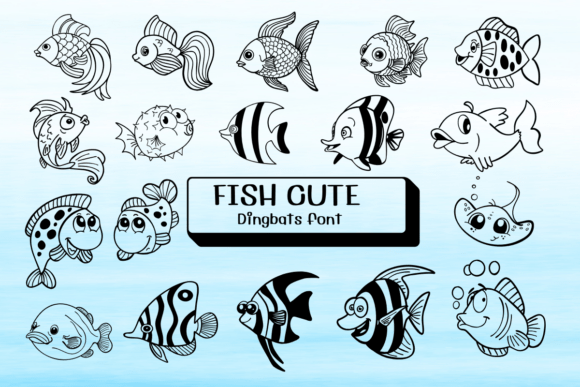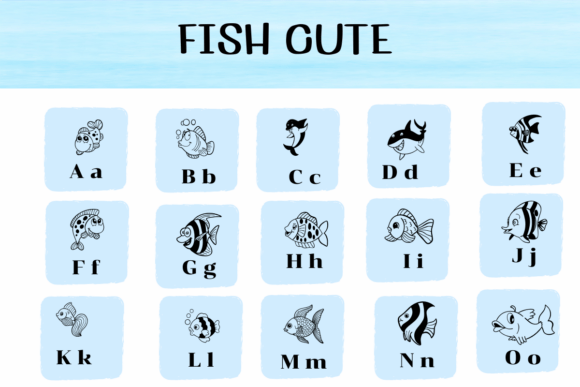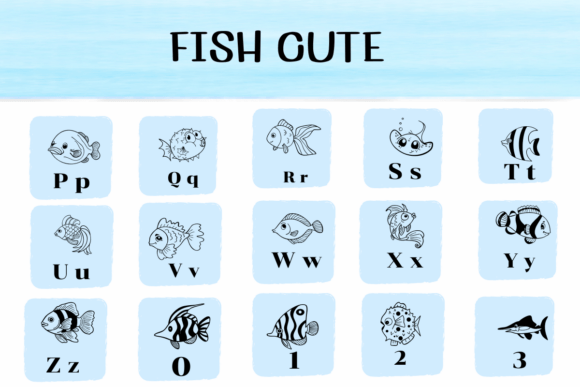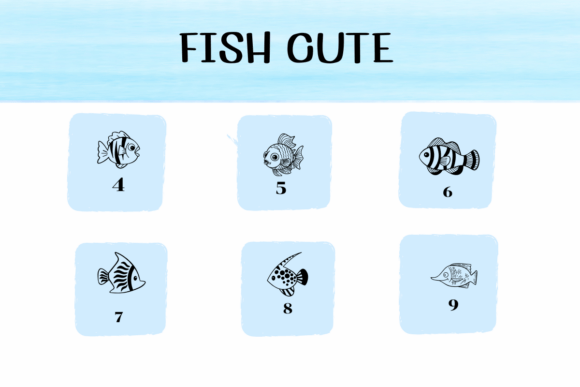
Fish Cute Font
About the Fish Cute Font
Unleash your creativity with Fish Cute Font, a versatile font perfect for a wide range of applications. Fish cute is a dingbats font with an aquatic theme. This font can enhance your creative projects such as wedding invitations, DIY, crafts, decorations, logos, and many other creative ideas.
Fish Cute’s playful, friendly personality makes it ideal for children’s books, branding for aquatic businesses, or whimsical packaging designs. It excels in short, impactful applications like logos, headlines, and decorative elements within larger designs. However, its decorative nature makes it unsuitable for body text or UI elements requiring high readability.
Consider pairing Fish Cute with a clean sans-serif like Open Sans for contrast, or a more playful script font like Pacifico for a cohesive, yet varied feel. A simple serif like Lora could also provide a sophisticated counterpoint to its lighthearted style.
The font’s charm lies in its quirky detail, making it best used sparingly to avoid visual clutter. Avoid using it for projects requiring professionalism or seriousness; its playful energy is best suited to projects with a lighthearted, fun, or creative approach.